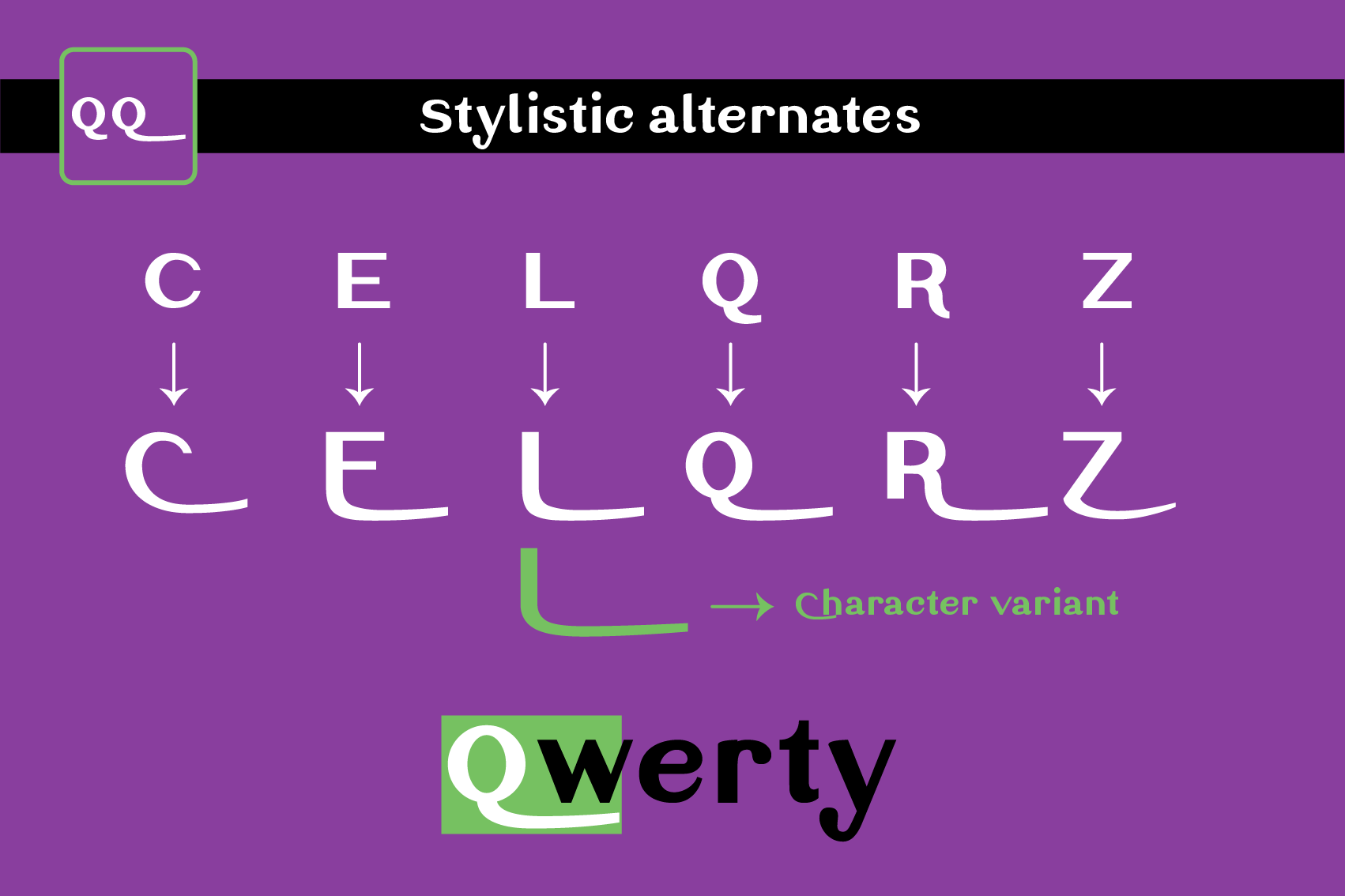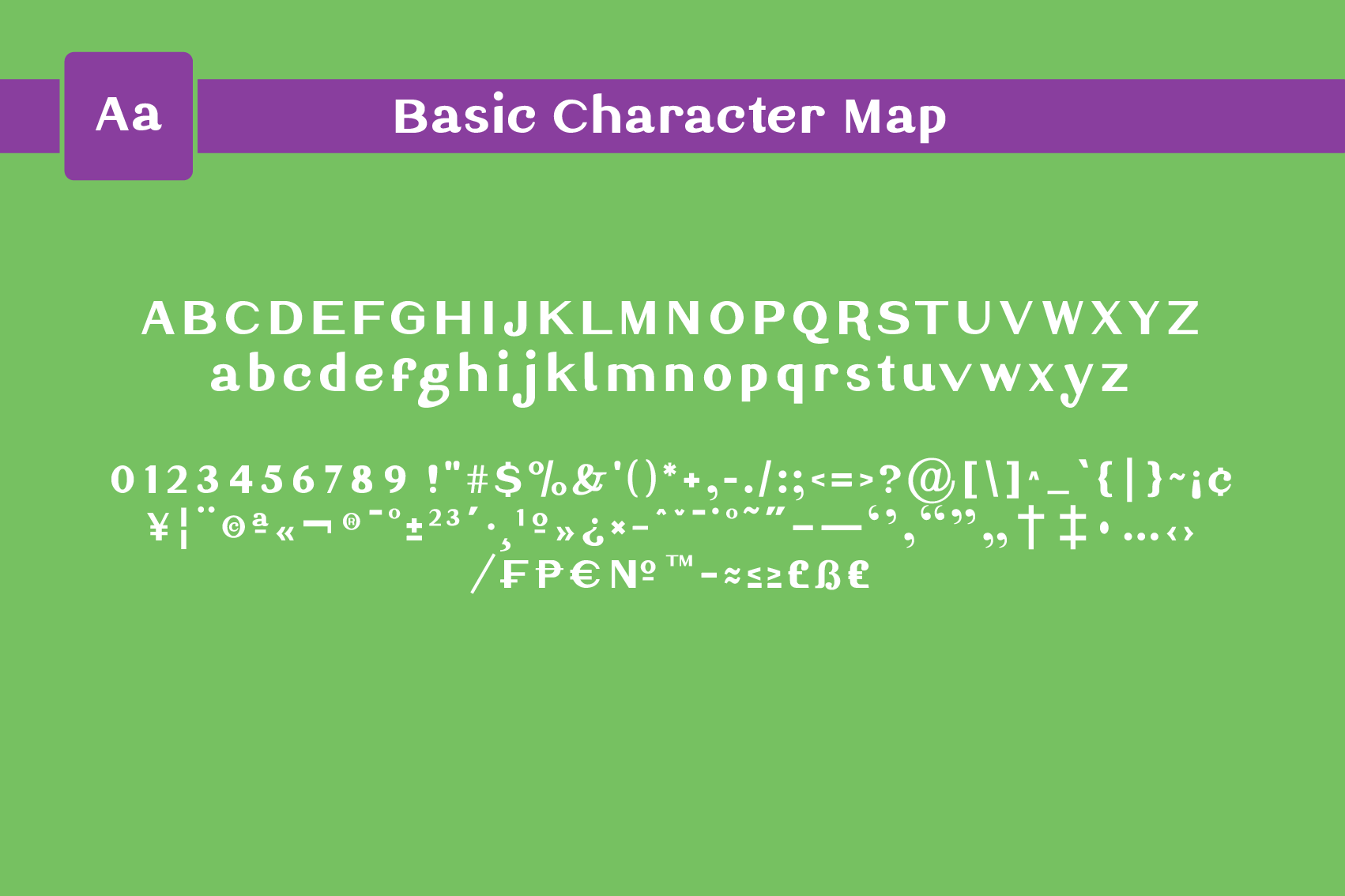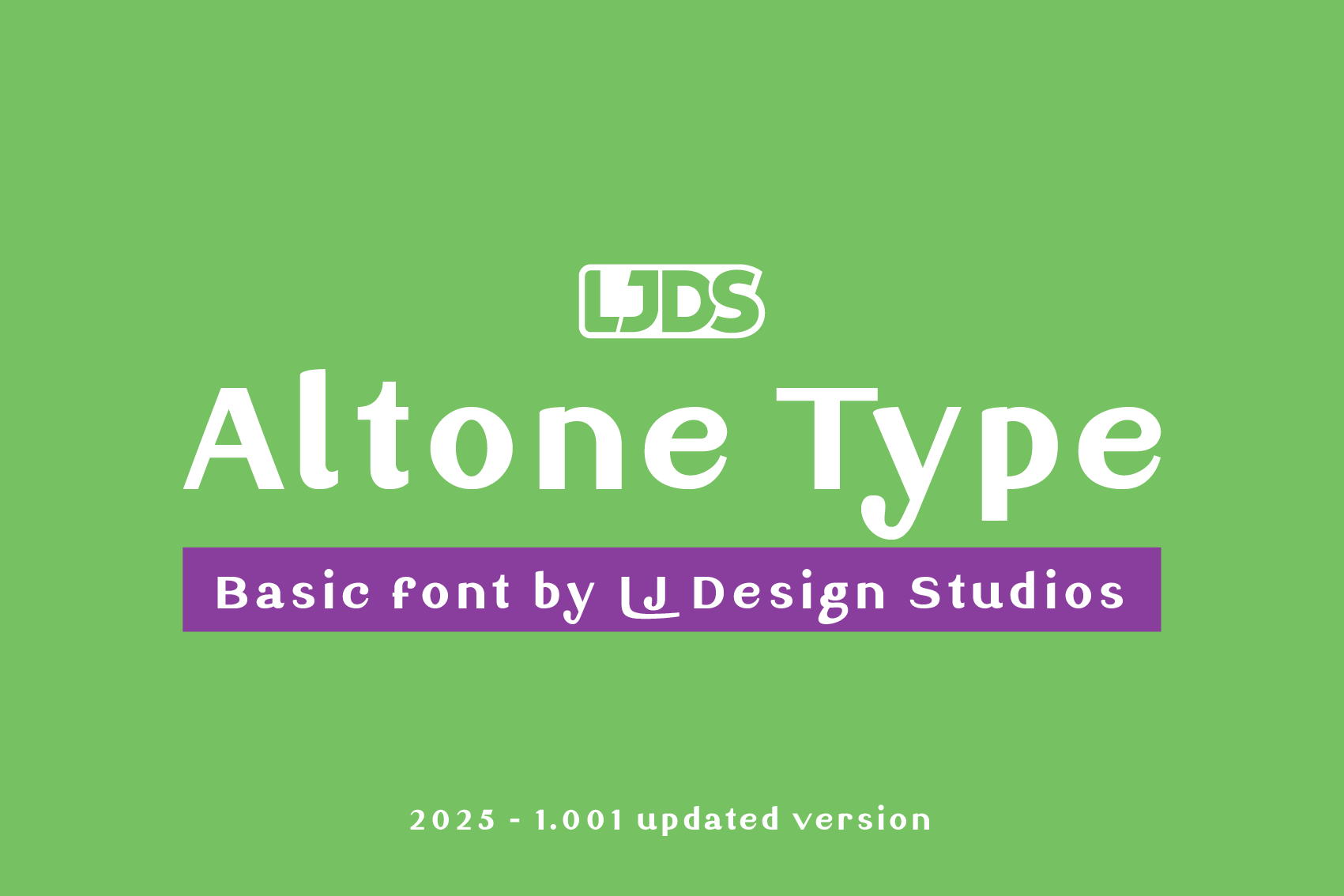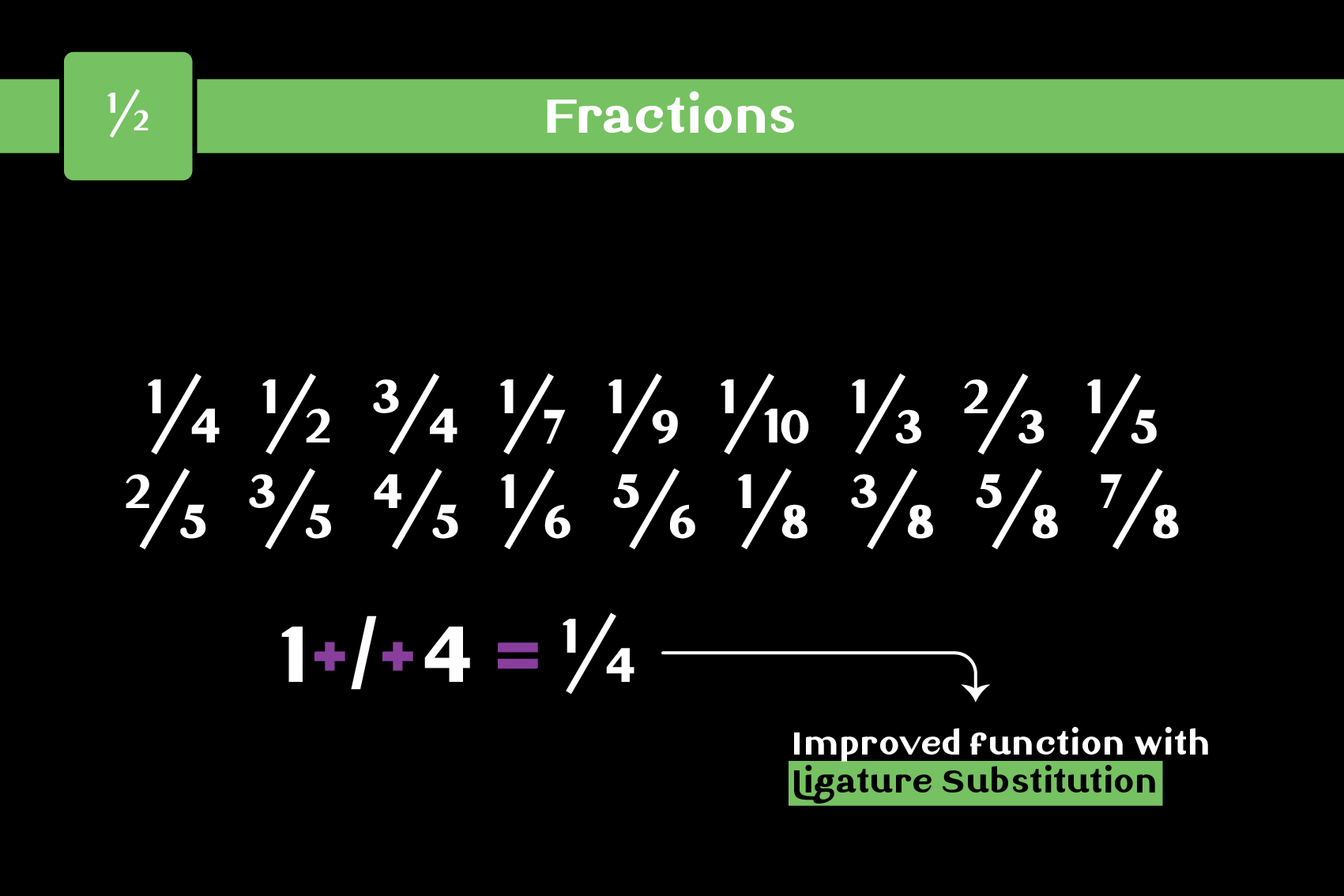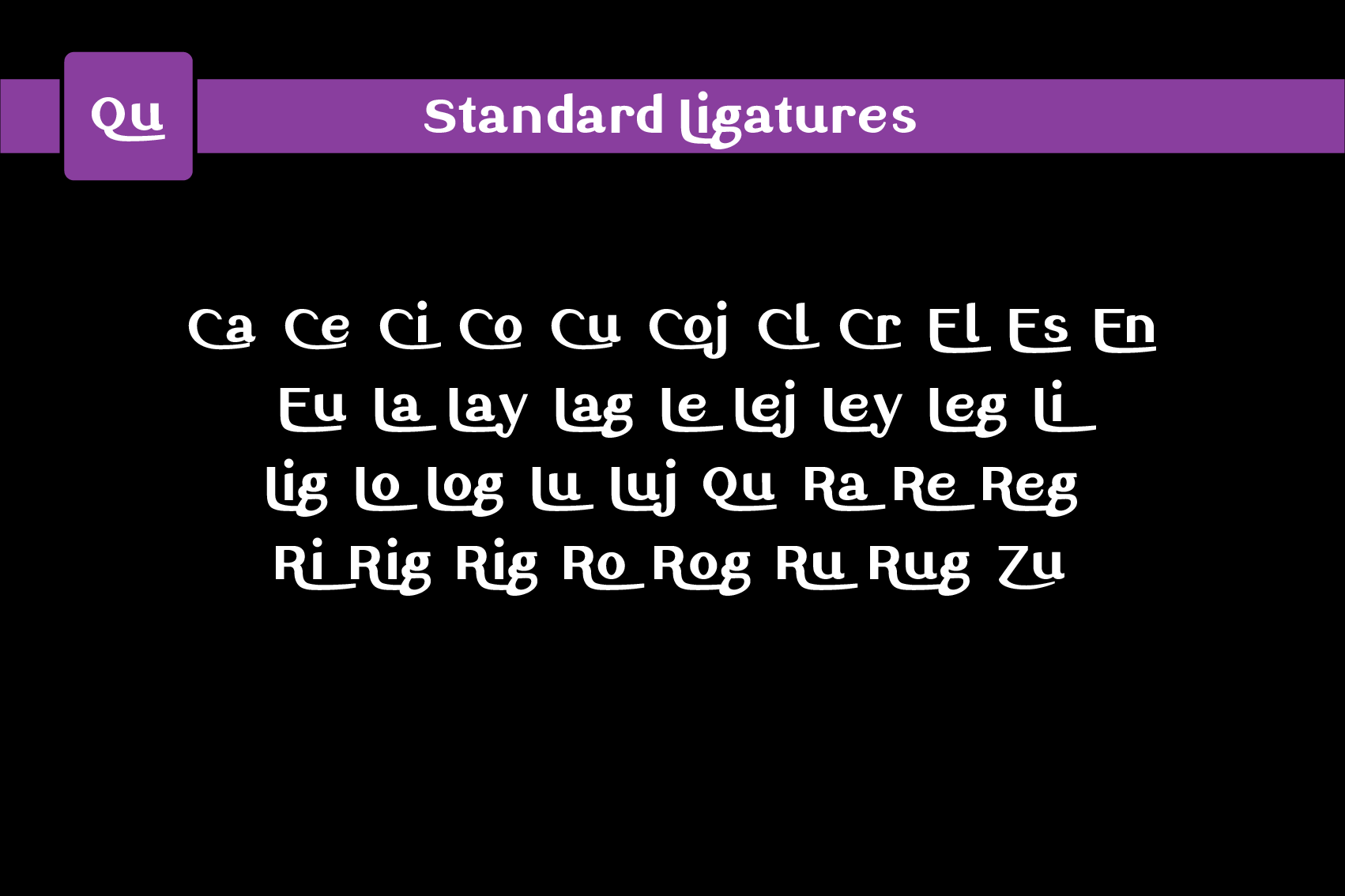
Altone Type font
Description:
2025 Updated versión:
• New ligatures
• Optimized glyphs
Based on Daily Reading, Altone type is a classic font designed to decorate short sentences or titles, and for occasional fluid writing with this alternative text style.
It’s packed with standard and stylistic ligatures and some additional features that can give these texts a personalized touch.